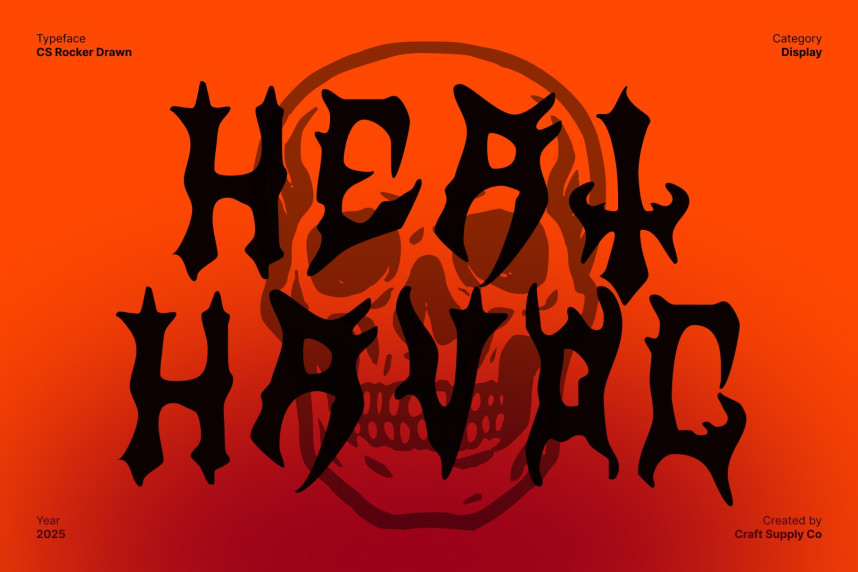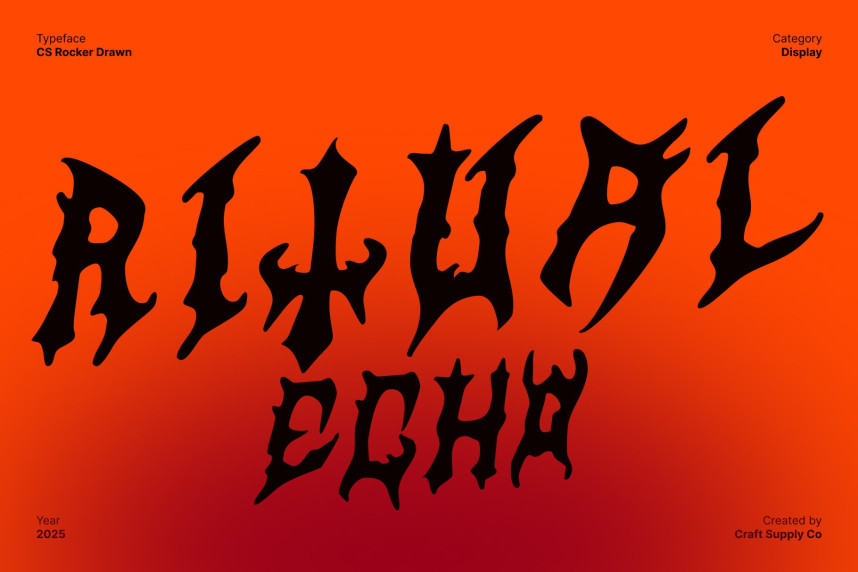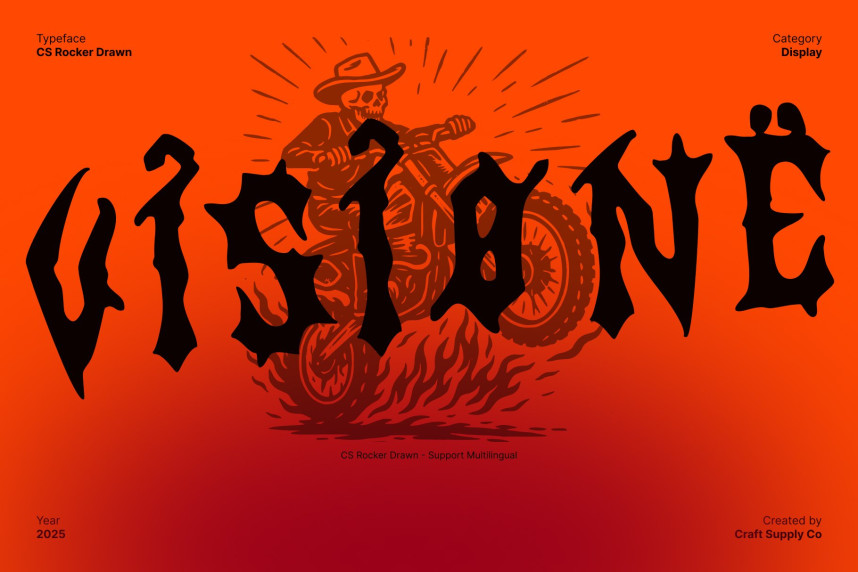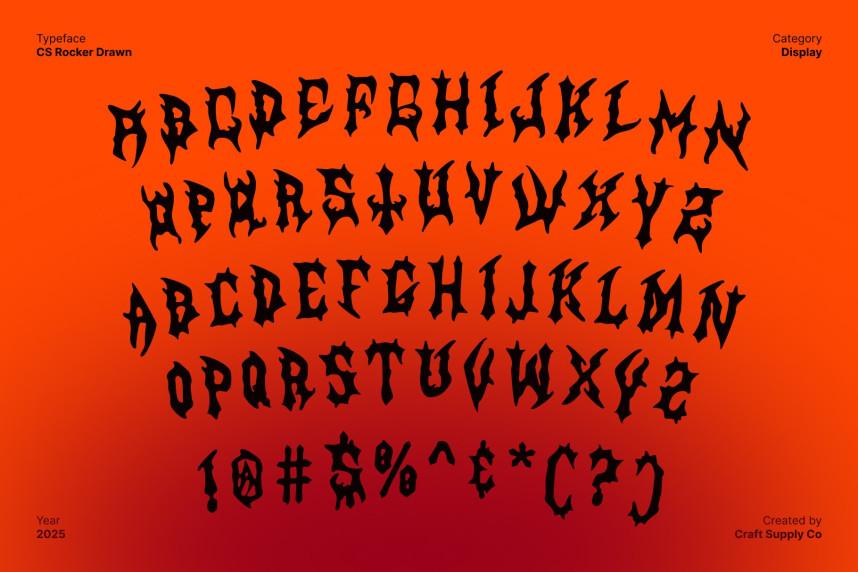
CS Rocker Drawn Font
CS Rocker Drawn Font – Heavy Metal Display Font with Hand-Drawn Edge Bold and Aggressive Display Typeface. This is a loud, commanding heavy metal display font crafted to capture the raw intensity of metal music. Its sharp, angular letterforms radiate power and attitude, making every word feel forceful and electrifying. Designed to dominate visual space, this font is ideal for projects that demand attention and deliver a bold statement.